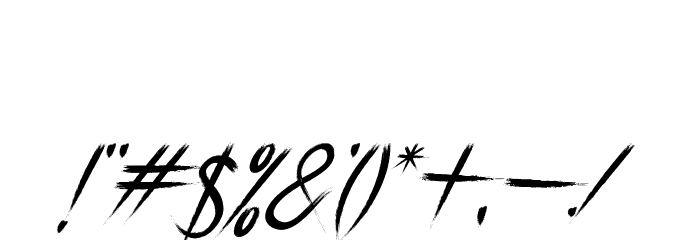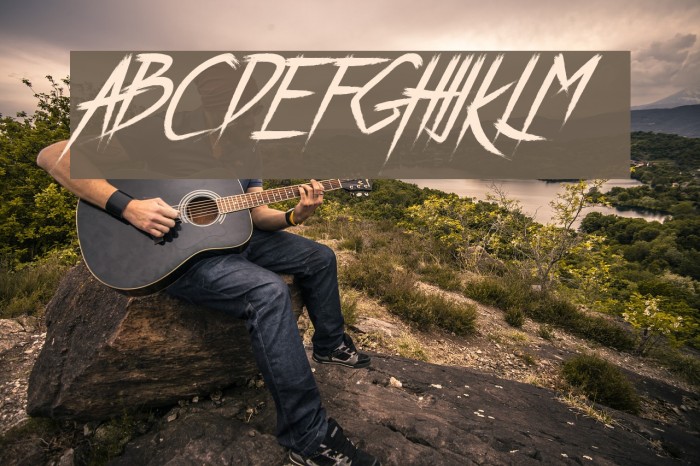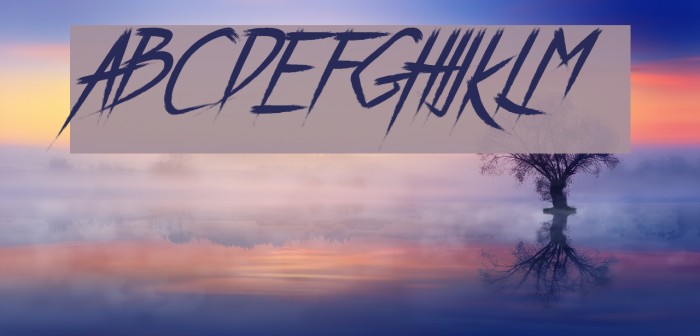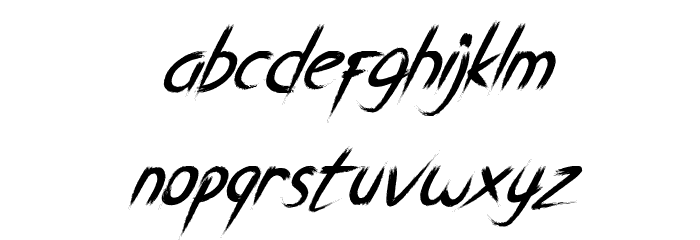
Breathe Karma Italic Regular Font
Breathe Karma Italic Regular Description
This font features a dynamic and edgy style, characterized by sharp, angular strokes and a sense of motion. The letters are slightly slanted, giving an italicized appearance that adds to its energetic feel. The uppercase and lowercase letters maintain a consistent design, with elongated lines and pointed edges that create a sense of urgency and movement. The numbers and special characters follow the same aesthetic, ensuring a cohesive look across all elements. This font is ideal for projects that require a bold, impactful statement, capturing attention with its unique and modern design.
| Proposed Projects | Ideal for music album covers, sports branding, or any project needing a bold, energetic look. |